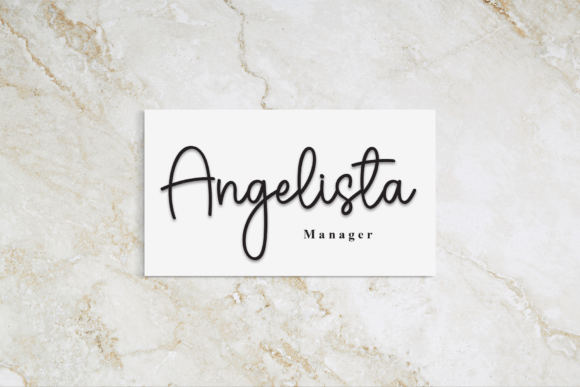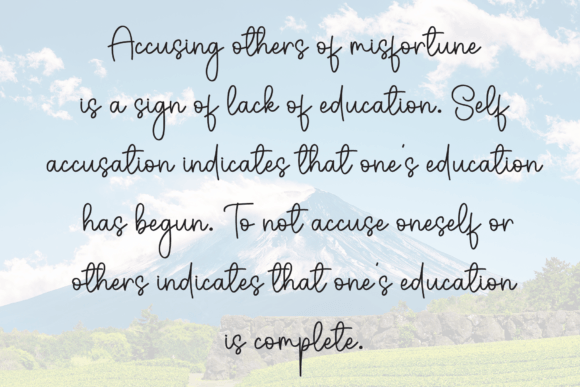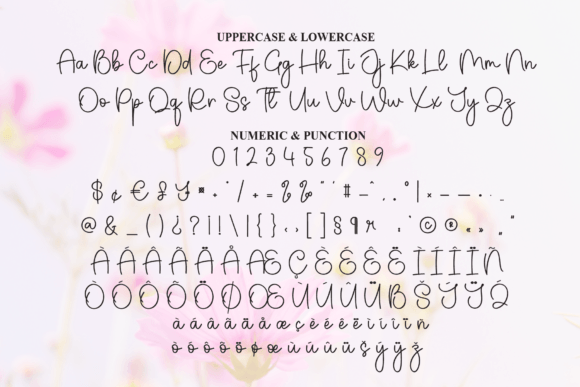
Introduction to Pretty Font
Have you ever been working on a creative project, pouring your heart and soul into it, only to feel like something’s missing? Maybe it’s a handwritten note or a custom invitation – you want it to feel personal, special, and uniquely yours. That’s where Pretty Font comes in – a charming handwritten font that’s sure to add a warm and friendly touch to any design.
This beautiful font has smooth, flowing letters that give off a sense of care and attention to detail, making it perfect for designers looking to add a personal touch to their projects. Whether you’re working on a free download or a high-quality design resource, Pretty Font is a valuable asset that can elevate your work and make it stand out.
Key Features of Pretty Font
- Unique, hand-drawn design style that adds a touch of elegance and sophistication to any design.
Honest Review: Pretty Font
I recently stumbled upon Pretty Font while searching for a high-quality design resource for a creative project. I was blown away by the sleek and elegant appearance of this font. ✨
- What I like:
- High-quality design that’s perfect for various creative projects
However, I did encounter some limitations while using Pretty Font. ⚠️
- Not suitable for projects that require bold or dramatic font styles
- Some characters may not be available in certain font sizes or styles
Overall, I’m impressed with Pretty Font’s design and versatility. It’s a great addition to any designer’s toolkit, and I’d definitely recommend it for projects that require a touch of elegance and sophistication. Just be aware of its limitations, and you’ll be all set for a successful creative project.
Common Use Cases for Pretty Font
Pretty Font is ideal for various creative projects, including logos, invitations, social media graphics, and brochures. Its transparent background feature makes it easy to customize and combine with other design elements.
Tips for Getting the Most Out of Pretty Font
To get the most out of Pretty Font, experiment with different font sizes, colors, and combinations. Use it in conjunction with other design resources to create unique and eye-catching designs.
Alternatives to Pretty Font
The Great Vibes Font is a high-quality, free download that’s perfect for creative projects requiring a touch of elegance. It’s ideal for headings and titles in design resources where a clear, modern look is desired.
Compared to Pretty Font, Great Vibes Font offers a more sophisticated and refined aesthetic, making it suitable for high-end design projects.
Pacifico Font is a beautiful, free download ideal for creative projects needing a relaxed, beachy vibe. It’s great for headings, titles, and even body text in design resources where a casual, laid-back atmosphere is desired.
Unlike Pretty Font, Pacifico Font has a more casual and laid-back feel, making it perfect for design projects that require a sense of relaxation and tranquility.
Alex Brush Font is a stunning, high-quality font perfect for design resources requiring a touch of sophistication and elegance. It’s ideal for headings, titles, and even body text in creative projects where a clear, modern look is desired.
Compared to Pretty Font, Alex Brush Font offers a more elegant and refined aesthetic, making it suitable for high-end design projects that require a sense of luxury and sophistication.
Lobster Font is a unique, free download ideal for creative projects needing a touch of playfulness and whimsy. It’s great for headings, titles, and even body text in design resources where a fun, casual atmosphere is desired.